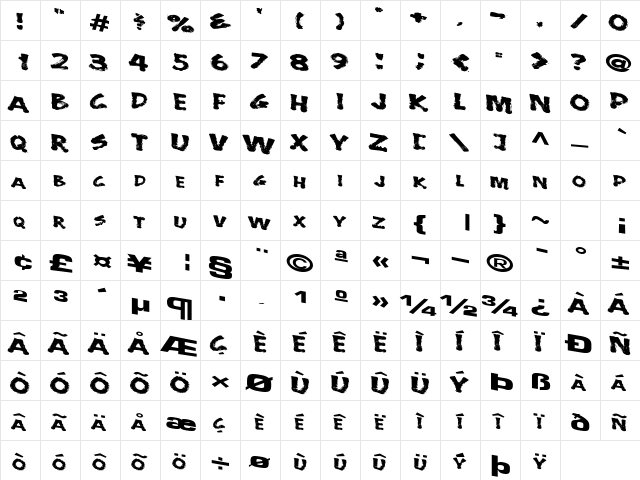
PowerSymbolPlus Regular
Design Context for PowerSymbolPlus Typeface
PowerSymbolPlus brings high-energy athletic personality to the page — its confident, muscular forms are built for impact.
A natural choice for gym brands, fantasy sports, jersey lettering, and action-driven headlines.
Pro Tip: Use PowerSymbolPlus in all-caps headlines where its athletic energy can fully express itself. Pair with a solid, simple sans for supporting text.